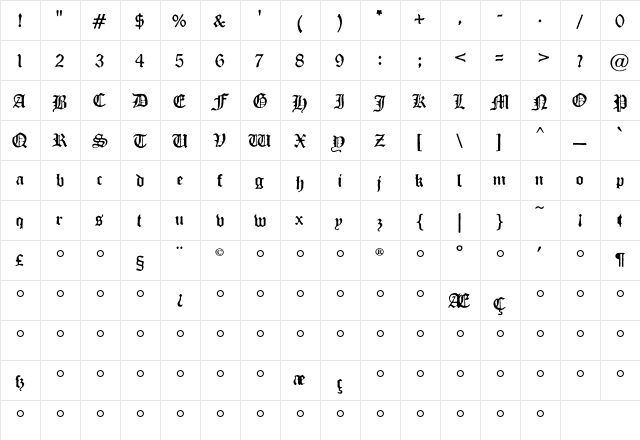
Flyerfonts Malfunction
Design Context for Flyerfonts Typeface
Flyerfonts has an approachable, lighthearted character — its loose, expressive forms are well-suited to children's content, casual branding, and fun-first design.
Well-suited to food and beverage brands with personality, educational materials, and fun-forward identities.
Font Pairing: Pairs well with a rounded or humanist sans for body copy, maintaining the friendly tone without relying on Flyerfonts to carry extended reading.
Pro Tip: Use Flyerfonts at larger display sizes where its expressive character can land. Pair with a clean, simple sans for body copy to maintain readability.